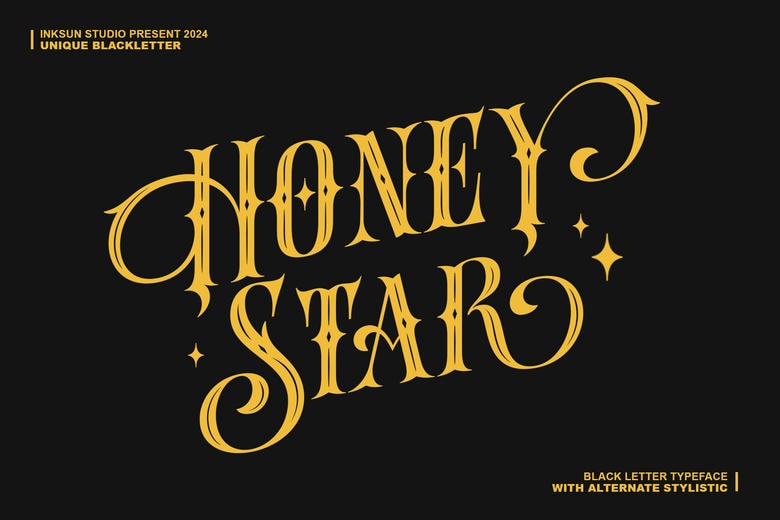
Honey Star Font
Honey Star is a bold and thick lettered blackletter font. Put it in your projects and you will not regret. This font is PUA encoded and it is easily accessible to all the glyphs and swashes!
Honey Star Blackletter Font